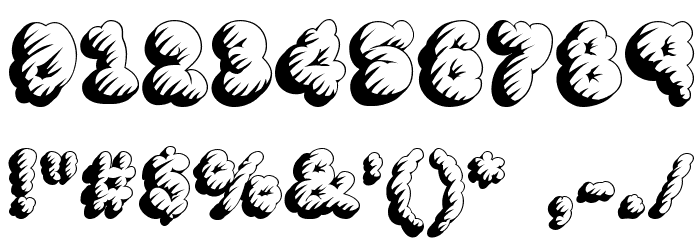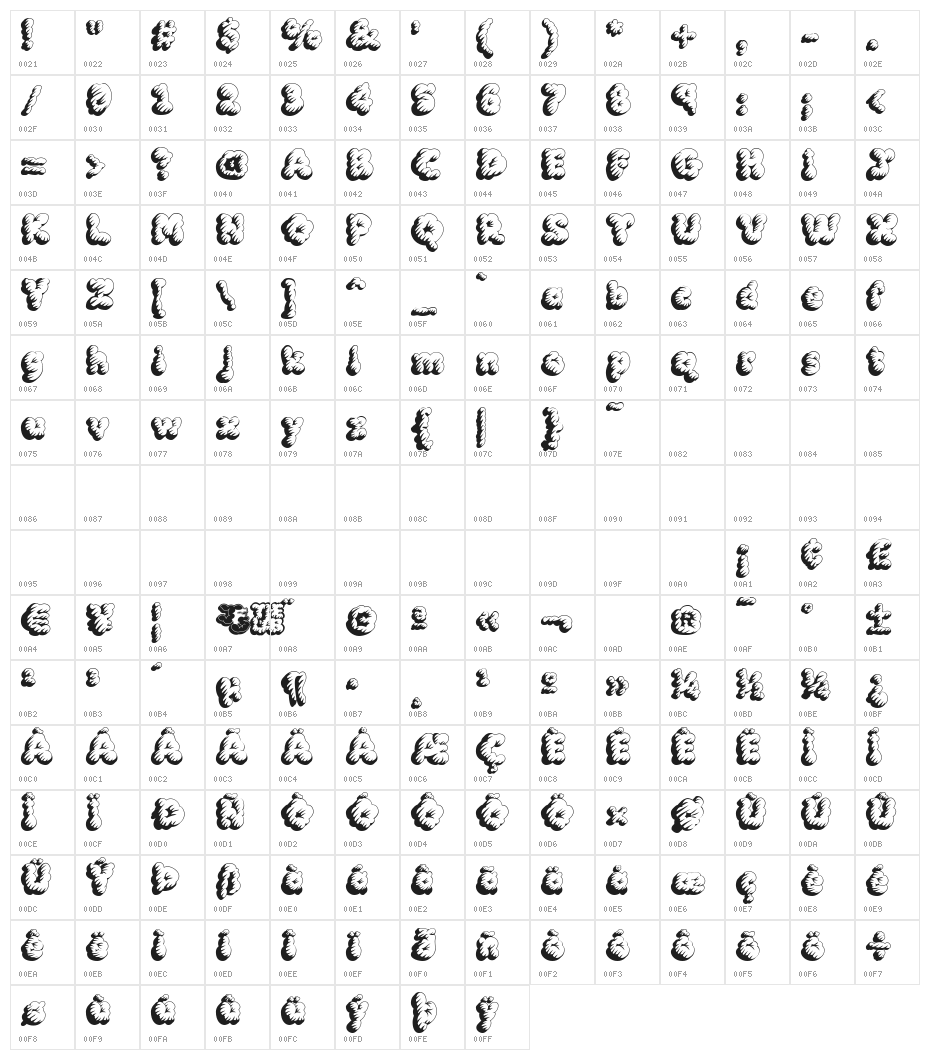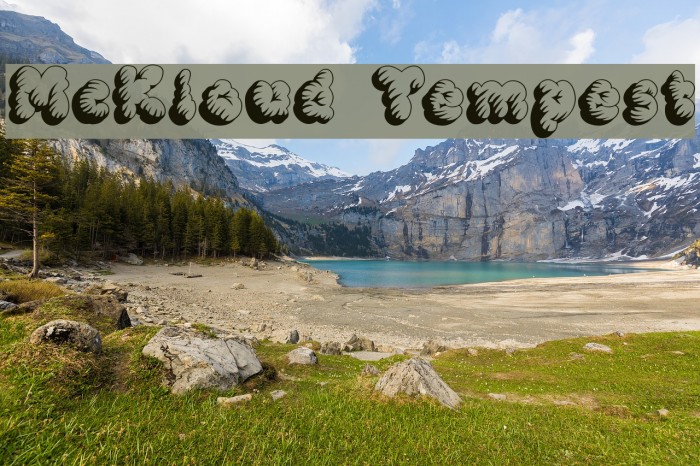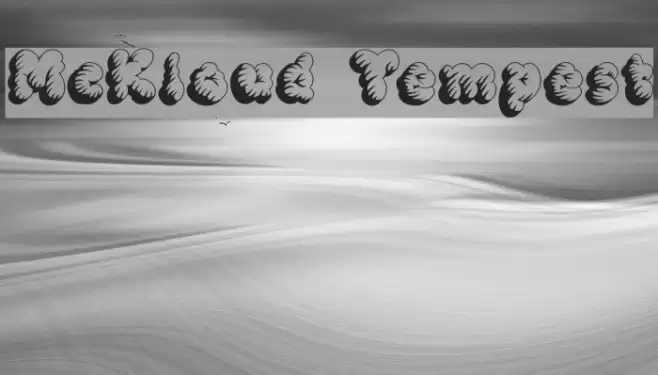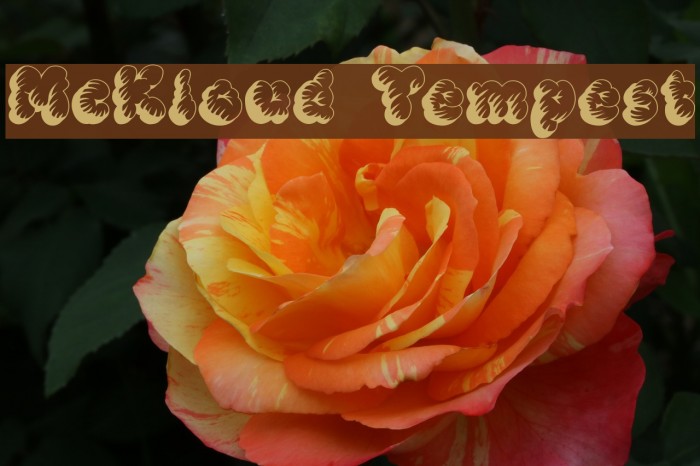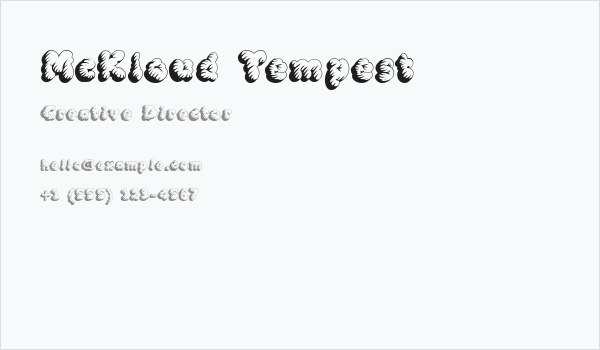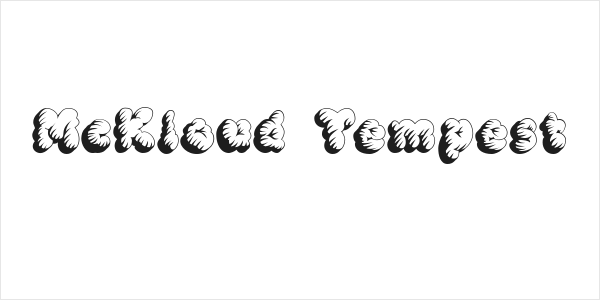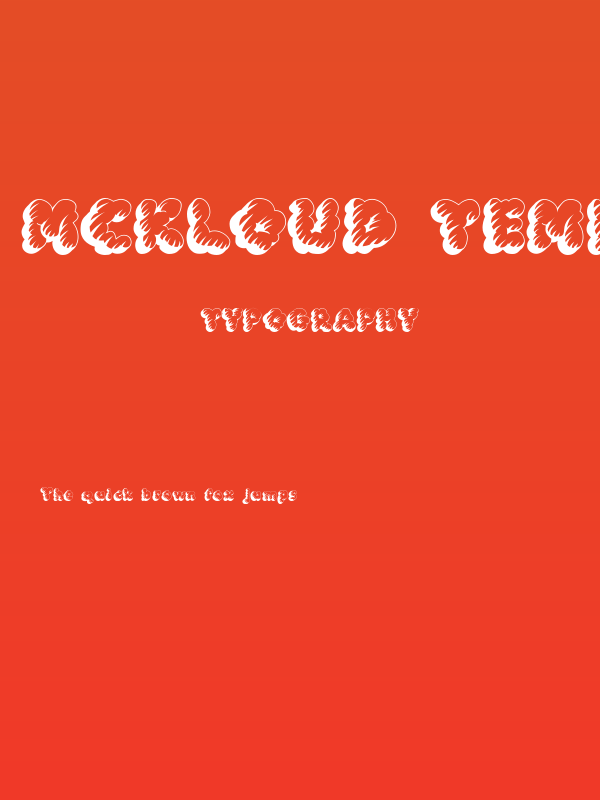
McKloud Tempest Font
McKloud Tempest Description
This playful and bold font features a unique, cloud-like design with a three-dimensional effect. Each character is rounded and puffy, resembling fluffy clouds, with a distinct shadow that adds depth and dimension. The whimsical style is consistent across uppercase, lowercase, numbers, and special characters, making it ideal for creative and fun projects. The font's exaggerated curves and soft edges give it a friendly and approachable appearance, perfect for capturing attention in a lighthearted manner.
Proposed ProjectsIdeal for children's book covers, playful branding, event invitations, and creative posters.